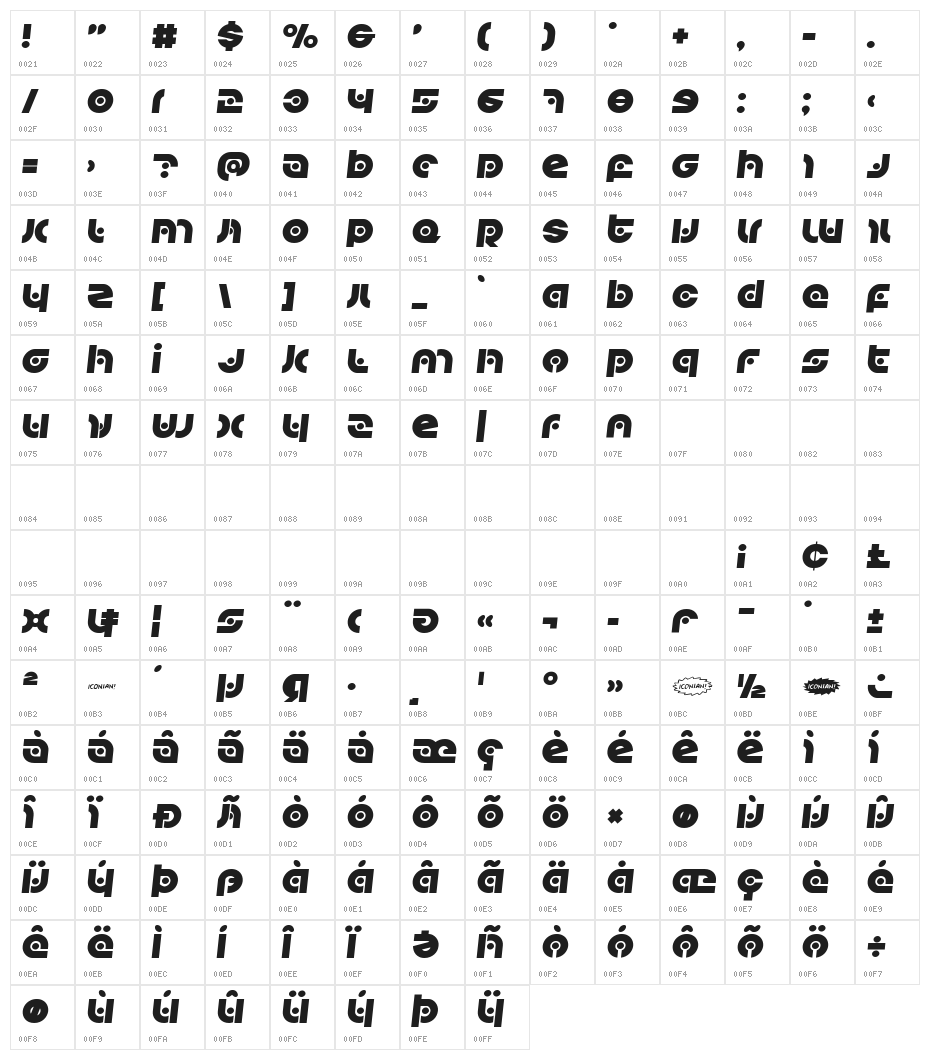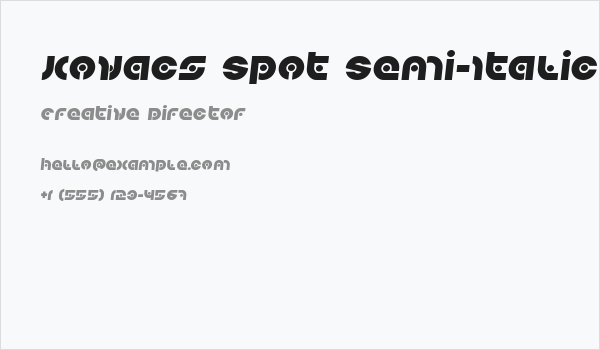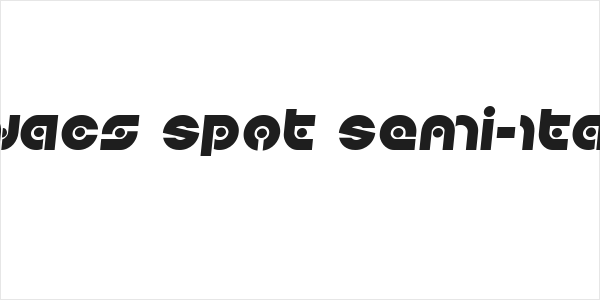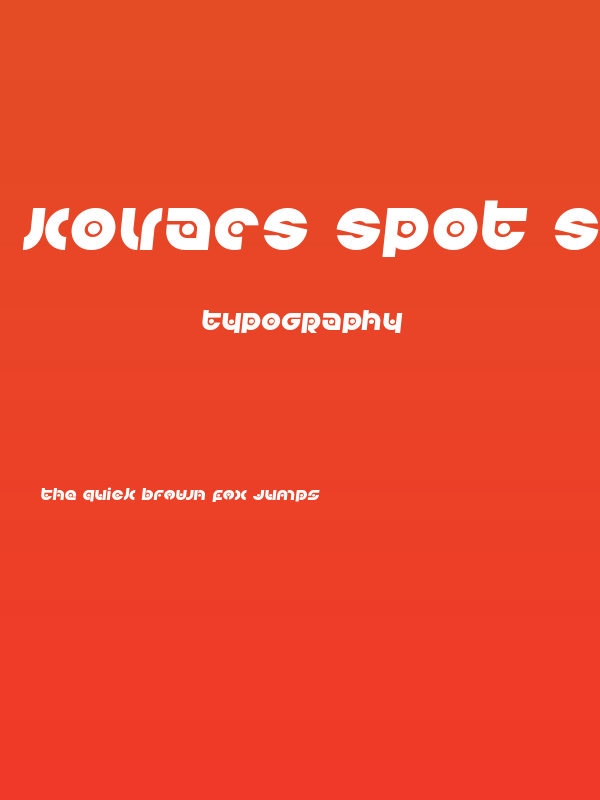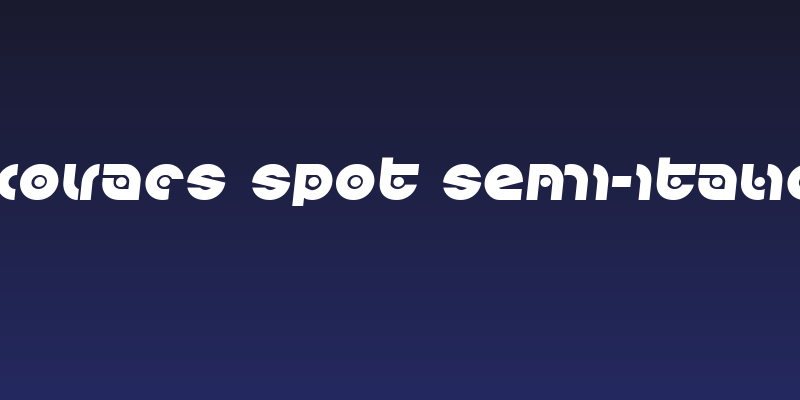
Kovacs Spot Semi-Italic Font
Kovacs Spot Semi-Italic Description
This font features a bold and geometric design with a semi-italic slant, giving it a dynamic and modern appearance. The characters are constructed with thick, uniform strokes that create a strong visual impact. The rounded edges and unique shapes of the letters add a playful and futuristic touch. The font maintains a consistent weight throughout, ensuring readability while providing a distinctive style. Its boldness and unique character shapes make it ideal for attention-grabbing headlines and creative projects.
Proposed ProjectsIdeal for branding, posters, headlines, and any project requiring a modern and bold aesthetic.